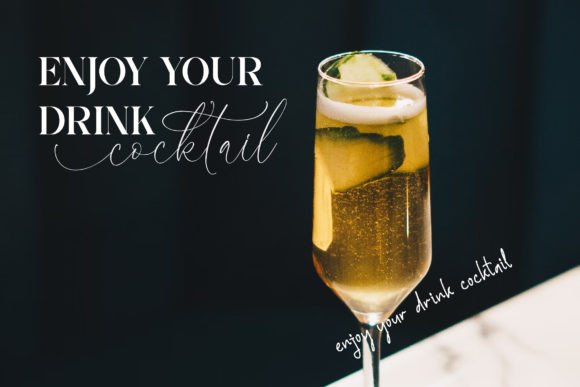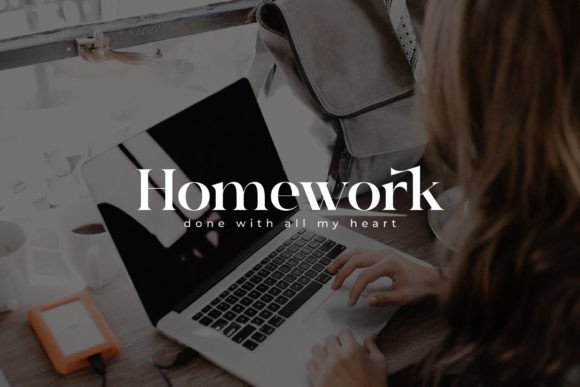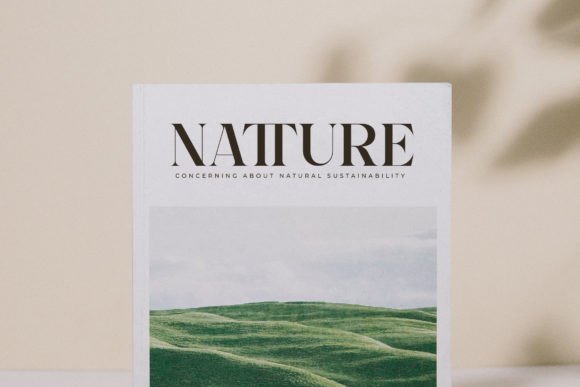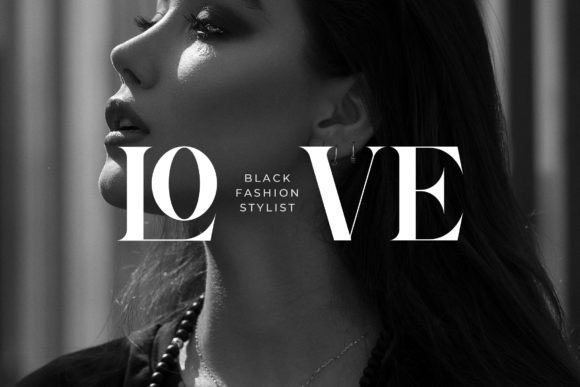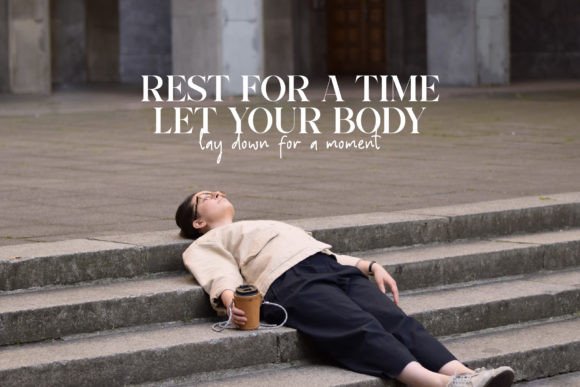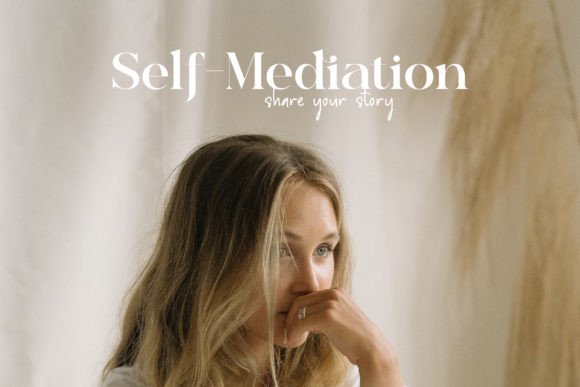
Introduction to Qilgabe Font
Qilgabe is a modern and stylish serif font.
Add it confidently to your projects and you will love the results .
Key Features of Qilgabe Font
Why Choose Qilgabe Font?
Qilgabe Font offers exceptional quality and versatility, making it a valuable addition to your design toolkit. Whether you’re creating for personal projects or commercial use, Qilgabe Font delivers professional results.